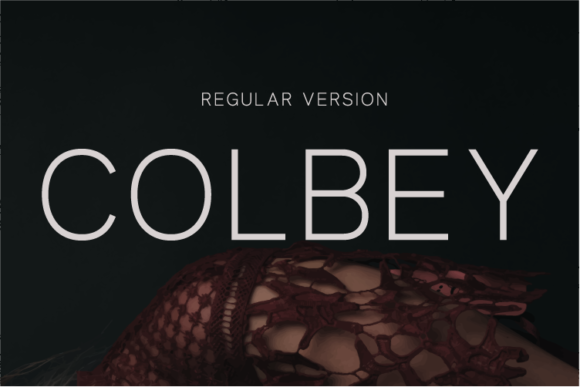
Introducing Colbey Regular – a font that captivates with its timeless sophistication and versatility.
Step into a world of boundless creativity with Colbey Regular, a sans serif font that effortlessly combines elegance and functionality. Its smooth curves and soft edges evoke a sense of tranquility, while its clean geometry creates a visual harmony that delights the eye.
With Colbey Regular, your words become art. Whether you're crafting enchanting brand identities, designing captivating logos, or weaving captivating headlines, this font empowers you to make a lasting impression. Its versatility extends beyond the realm of print, making it a digital darling for web design projects that demand both style and readability.
Let Colbey Regular be your muse, inspiring you to create designs that resonate with your audience. Its timeless appeal ensures that your creations will stand the test of time, while its adaptability allows you to effortlessly adapt it to any creative endeavor.
Unlock the potential of Colbey Regular today and embark on a typographic journey where beauty and functionality intertwine seamlessly.